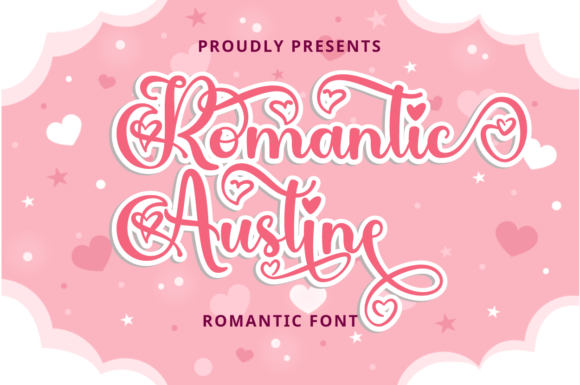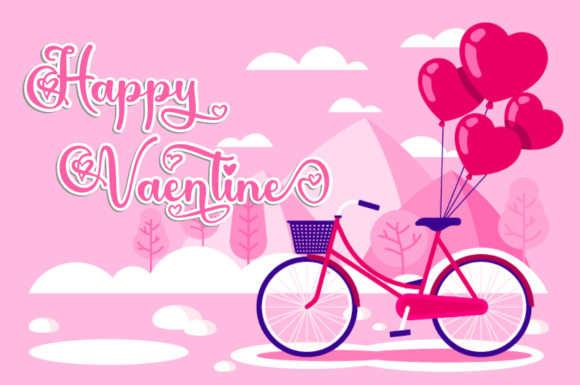
About Romantic Austine Font
Romantic Austine is a lovely and timeless handwritten font. It is the best choice for creating eye catching logos, branding and quotes. Romantic Austine is PUA encoded which means you can access all of the amazing glyphs and ligatures with ease!